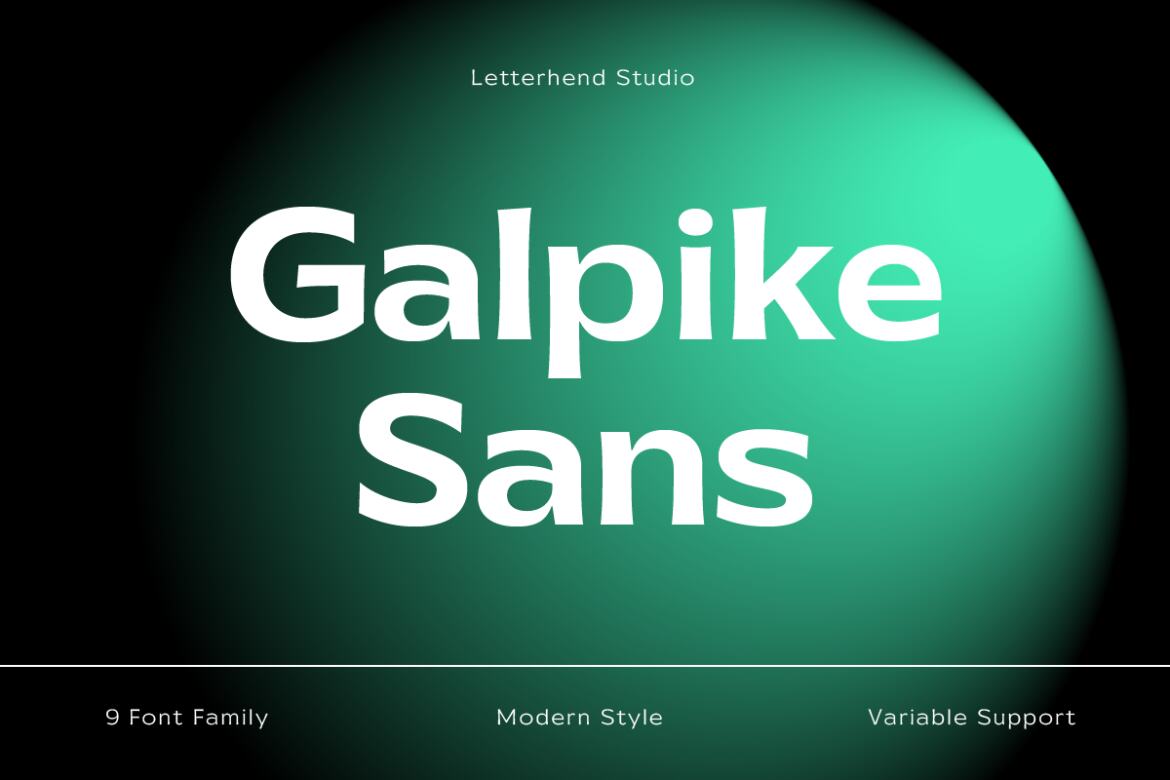
01. Morshine – Victorian Display Font from Hendry Juanda
Morshine is a typeface which is inspired by vintage lettering sign and art. While this font has a victorian touch, it still looks bold and solid. Very suitable for for headline, logotype, apparel, invitation, branding, packaging, advertising etc with old school / vintage theme. This typeface looks great combined with decorative ornaments. It comes in uppercase, lowercase, punctuations, symbols & numerals, stylistic set alternate, ligatures, etc also support multilingual and already PUA encoded.
02. Romans Story – Ligature Serif Font from Hendry Juanda
Romans Story is a sophisticated ligature serif from us. This typeface has been made carefully to make sure its premium quality and luxury feel. The ligatures makes this typeface unique and stands out rather than the regular serif font. Very suitable for logo, headline, tittle, and the other various formal forms such as invitations, labels, logos, magazines, books, greeting / wedding cards, packaging, fashion, make up, stationery, novels, labels or any type of advertising purpose.
03. Galpike Sans – Variable Font from Hendry Juanda
Galpike Sans is a neat and clean variable font. The typeface is versatile to blend in your design- with 9 weight, ranging from regular, medium, thin, bold, semibold, extrabold, light, extralight and black & 18 styles + variable type to touch a lot of personality. Perfect anywhere you need a right finas touches for branding, publishing, titles, book, magazine , and use on UI/UX design.